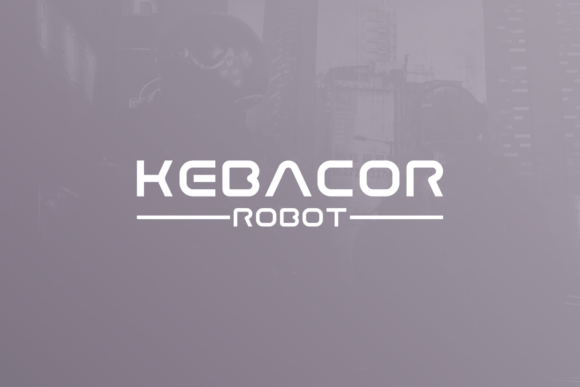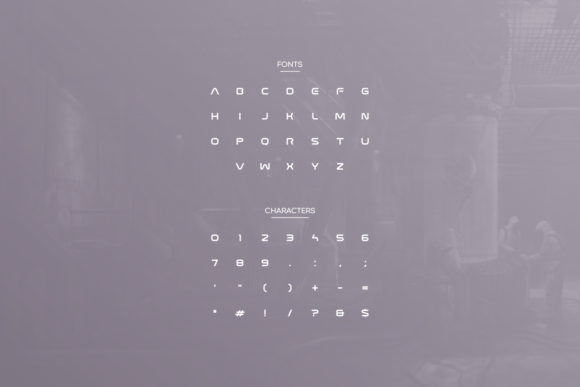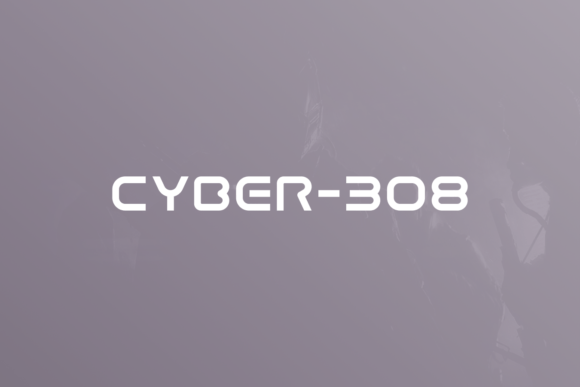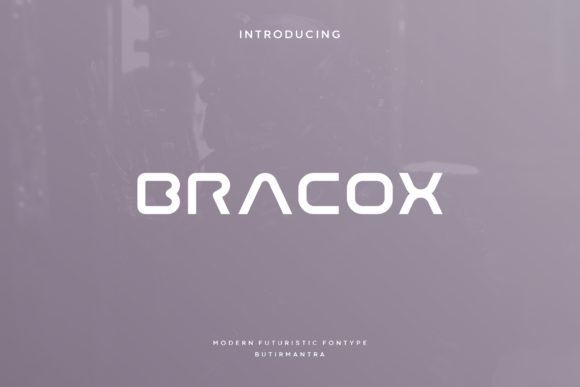
Discover the Futuristic Elegance of Bracox Font
In the realm of typography, fonts play a pivotal role in conveying messages, expressing creativity, and establishing brand identities. Among the myriad of fonts available, Bracox stands out for its sleek, modern appeal, making it an excellent choice for designers and crafters looking to infuse their projects with a touch of futuristic sophistication. In this article, we’ll delve into the characteristics, applications, and benefits of using Bracox Font in your design endeavors.
What is Bracox Font?
Bracox is a smooth and simple linear sans font, meticulously designed for a variety of applications including headlines, editorials, branding, packaging, and printed materials. Its design is marked by clean lines, a minimalist aesthetic, and a forward-thinking vibe that aligns perfectly with contemporary design trends. The font’s simplicity is deceptive; beneath its unassuming exterior lies a versatile and powerful tool capable of elevating your designs to new heights.
Key Features of Bracox Font
• Smooth and Simple Design: The hallmark of Bracox is its smooth, uncomplicated design. This feature ensures that the font remains legible across various sizes and resolutions, making it suitable for both digital and print applications.
• Linear Sans: As a linear sans font, Bracox boasts a modern look that eschews traditional serif fonts for a more streamlined appearance. This lends itself well to designs that require a clean, contemporary feel.
• Futuristic Appeal: The futuristic edge of Bracox makes it an ideal choice for projects that aim to convey innovation, technology, or forward-thinking values. Its sleek lines and minimalist design evoke a sense of modernity and sophistication.
• Versatility: Bracox’s versatility is one of its most compelling attributes. It can be effectively used in a wide range of applications, from headlines and editorials to branding and packaging. This versatility stems from its simple yet impactful design.
Applications of Bracox Font
The adaptability of Bracox Font makes it a valuable asset for designers working on diverse projects. Here are some of the key areas where Bracox can make a significant impact:
• Headlines and Editorials: For headlines and editorial content, Bracox offers a bold yet refined look that can help draw readers in while maintaining readability.
• Branding and Logos: The modern, sleek appearance of Bracox makes it an excellent choice for logos and branding materials, especially for companies looking to project a tech-savvy or innovative image.
• Packaging: When it comes to packaging, Bracox can add a touch of elegance and modernity, helping products stand out on crowded shelves.
• Printed Materials: For brochures, flyers, posters, and other printed materials, Bracox provides a clean and professional look that can enhance the overall design.
Benefits of Using Bracox Font
Choosing Bracox Font for your design projects comes with several benefits:
• Enhanced Readability: Its simple and clean design ensures high readability, even at smaller sizes.
• Modern Aesthetic: Bracox brings a modern aesthetic to your designs, making them instantly more engaging and contemporary.
• Versatility: The font’s versatility means you can use it across a range of projects, reducing the need for multiple fonts.
• Easy to Pair: Bracox can be easily paired with other fonts to create contrast and hierarchy in your designs, offering flexibility in typographic arrangements.
Author Letterna
Bracox Font emerges as a powerful tool in the arsenal of designers and crafters, offering a blend of simplicity, modernity, and versatility. Its smooth and simple linear sans design makes it suitable for a wide range of applications, from headlines and editorials to branding and packaging. By incorporating Bracox into your design projects, you can achieve a futuristic look that resonates with contemporary audiences. Whether you’re aiming to create a bold statement or a subtle impression, Bracox Font provides the elegance and sophistication needed to elevate your designs.